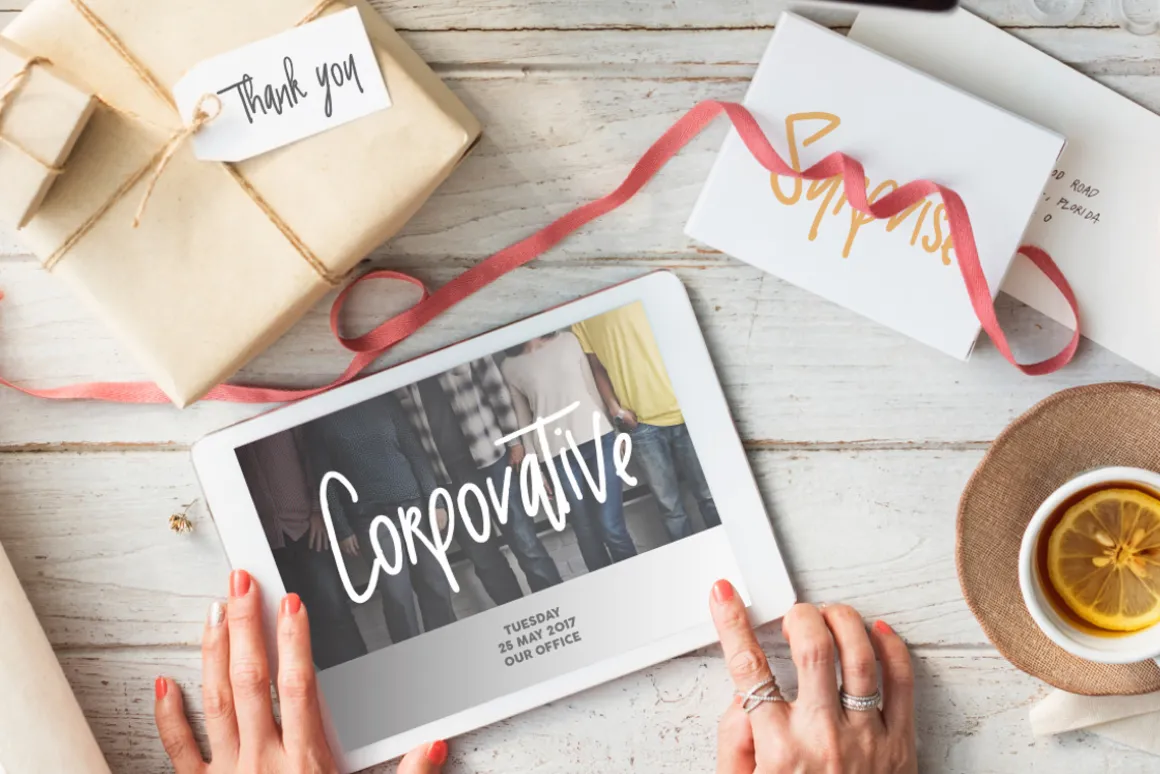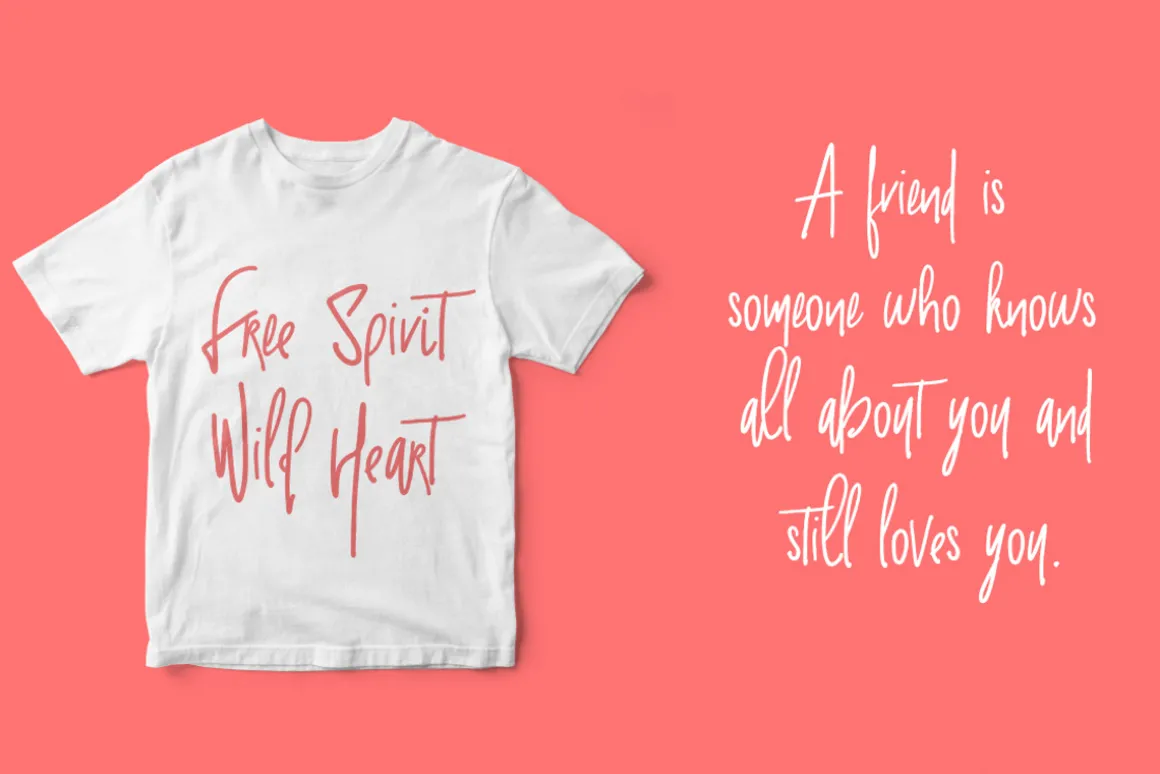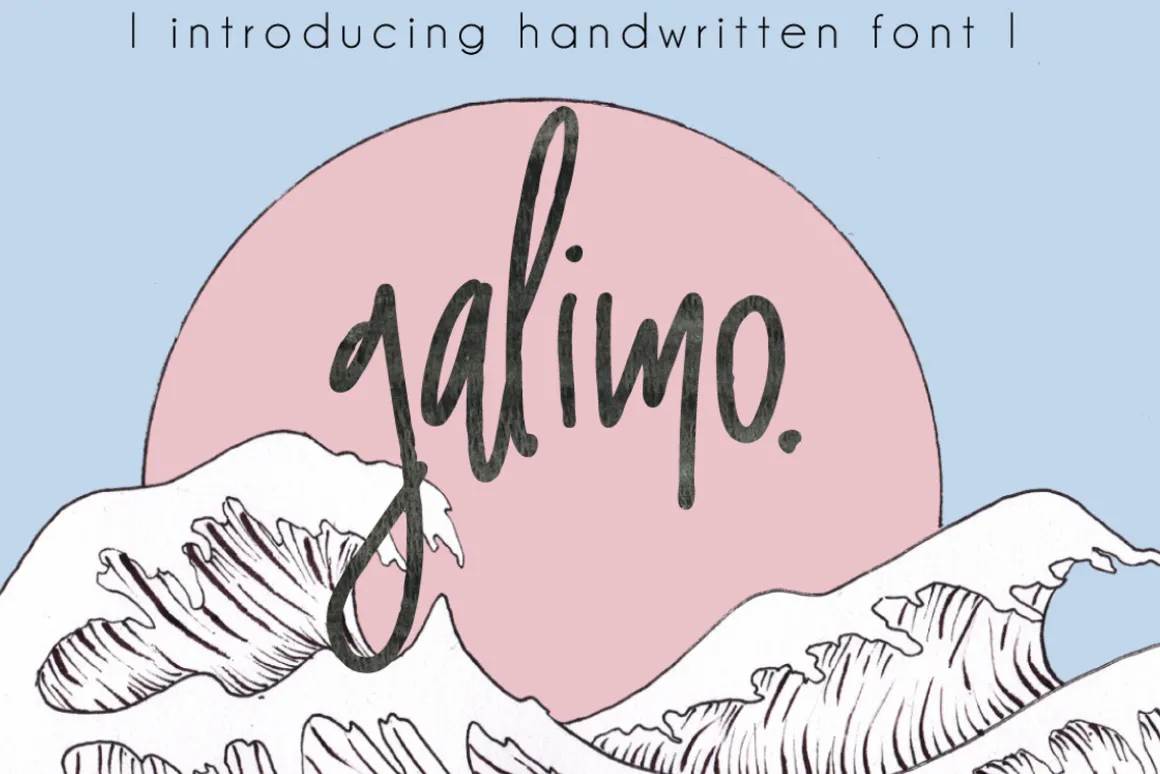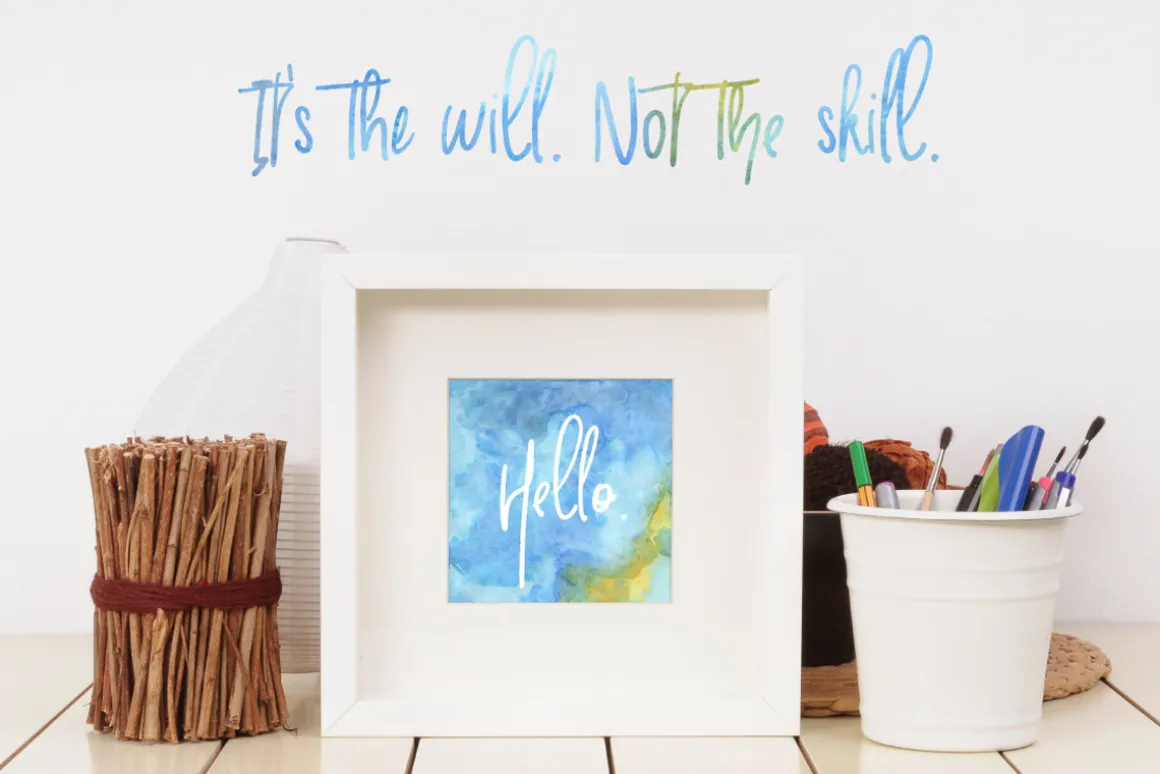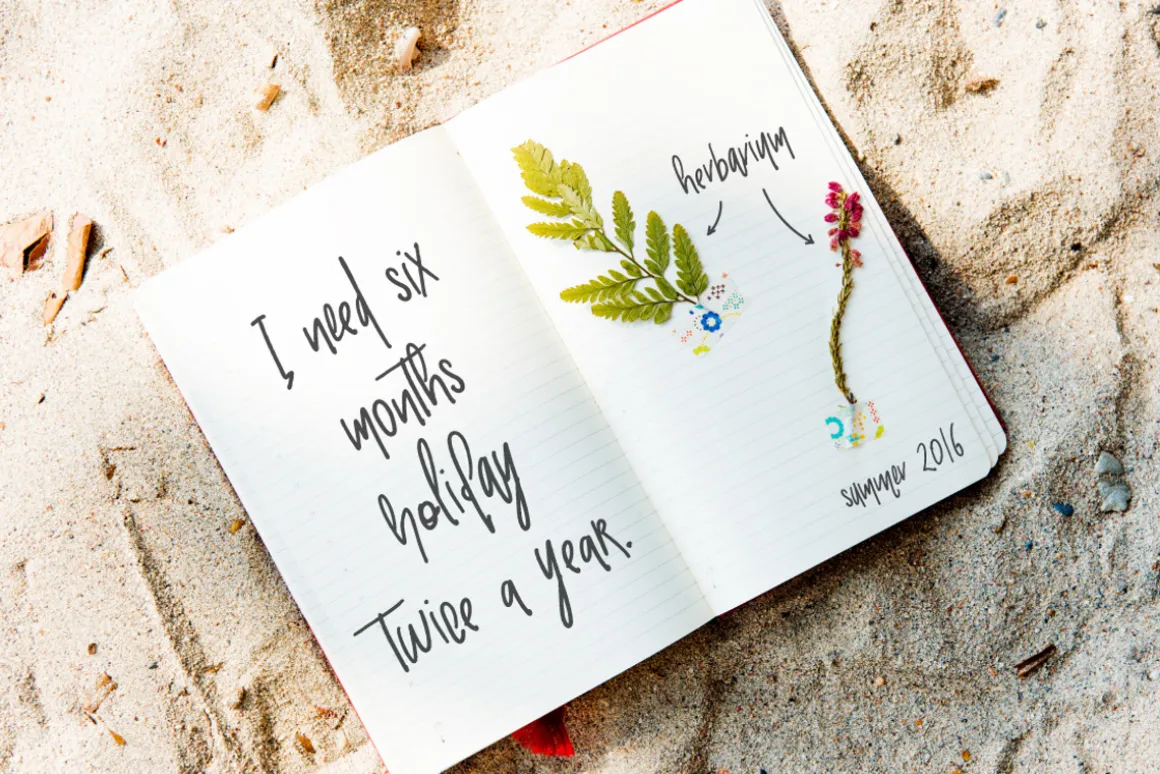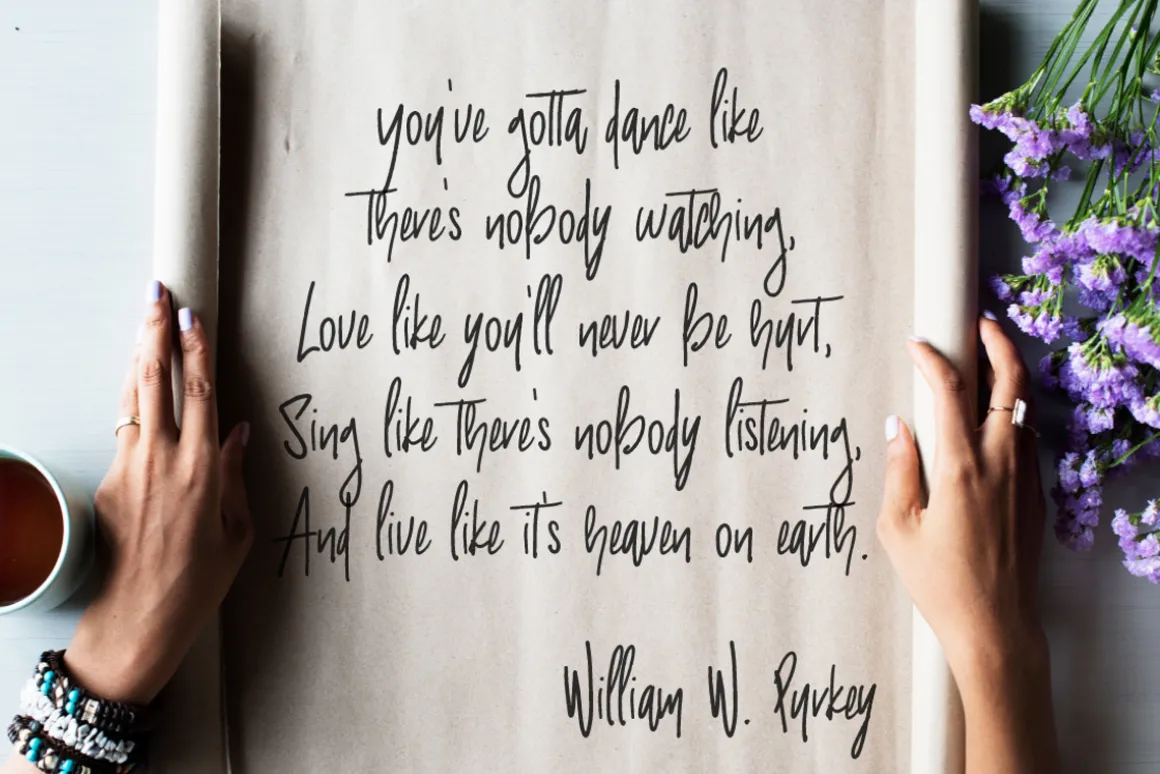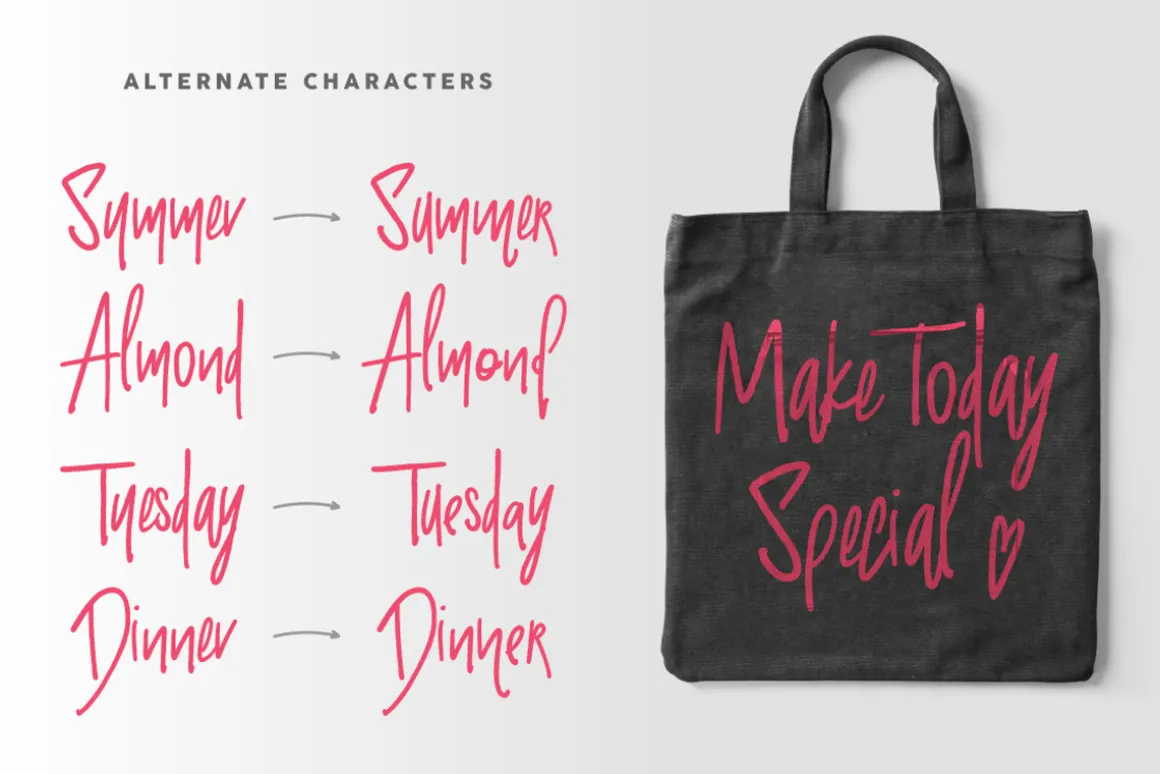
Galimo – it’s handwritten brush script with many different alternate characters. This font is ideal for branding and decorate your any project.
This font are perfect for wedding invitation or your blog. Also with their help, you can create a logo or beautiful frame for your home. Or just use for your small business, book covers, stationery, marketing, magazines and more.